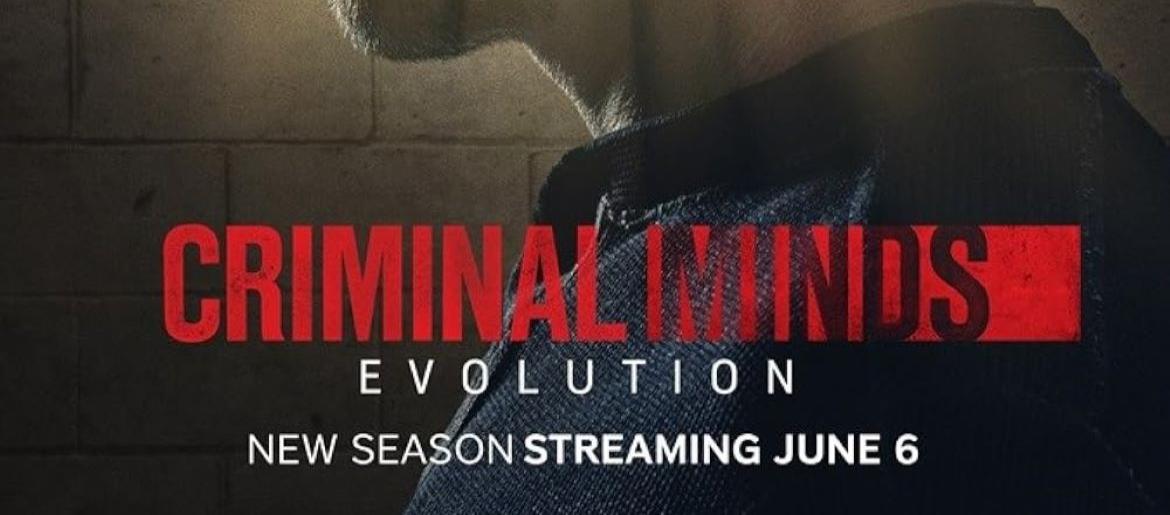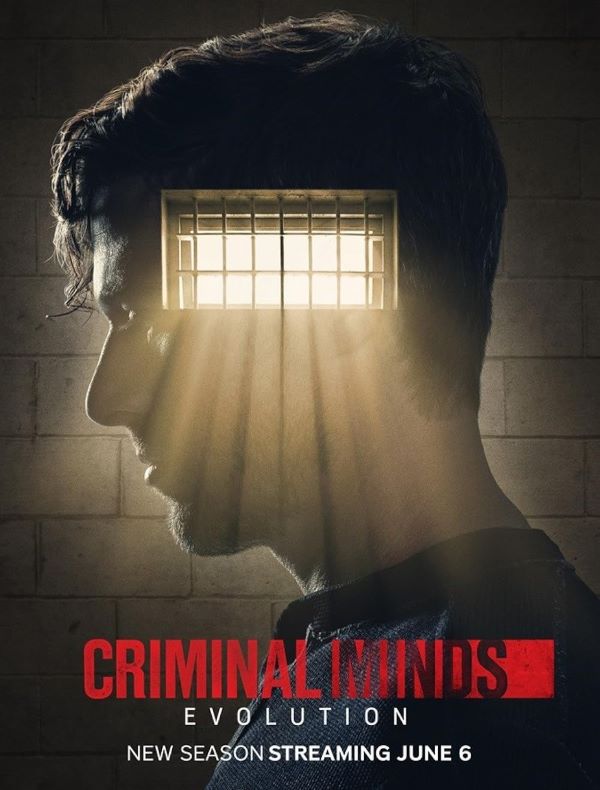
Criminal Minds Font
What Font is Criminal Minds?
Criminal Minds font is most likely Coolvetica Rg Cond typeface by Typodermic Fonts, a font characterized by extremely condensed, heavy letterforms that command immediate attention and convey urgency. The font’s intense, no-nonsense style perfectly captures the show’s dark subject matter and the Behavioral Analysis Unit’s relentless pursuit of dangerous criminals, embodying psychological tension and investigative precision.
About Criminal Minds
Criminal Minds is a crime drama series that aired on CBS from 2005 to 2020, created by Jeff Davis. The show follows an elite FBI Behavioral Analysis Unit team including agents played by Joe Mantegna, Matthew Gray Gubler, A.J. Cook, and others. Focusing on criminal profiling to catch serial killers and violent offenders, Criminal Minds became known for its psychological depth, complex cases, and character-driven storytelling across fifteen seasons and over 300 episodes.